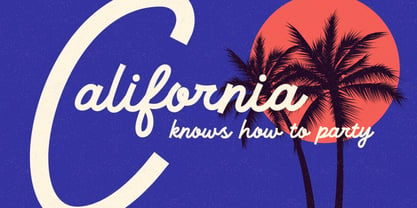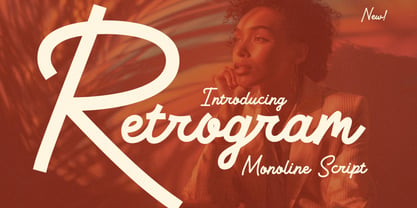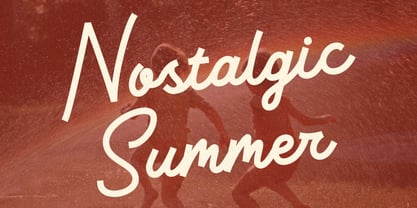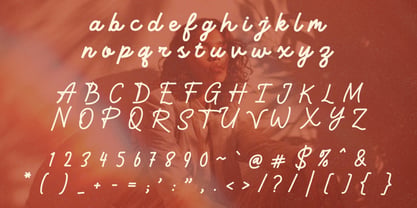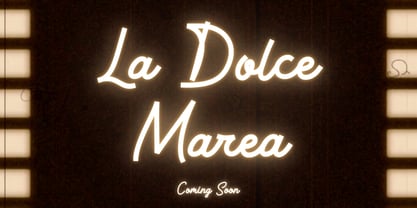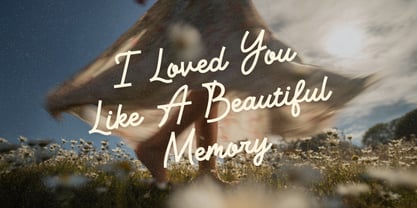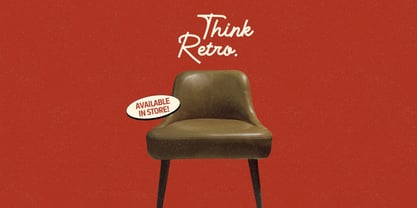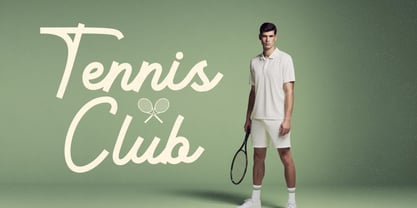
Retrogram
by Hipfonts
The Retrogram Font Family was designed by Igor Ovsyannykov and published by Hipfonts. Retrogram contains 1 styles. More about this family
Step into the golden glow of nostalgia with Retrogram, a stunning monoline script font that oozes charm, character, and charisma. Inspired by the carefree elegance of mid-century signage, classic soda labels, and retro Americana, Retrogram is more than just a typeface, it’s a time machine for your creativity.
Crafted with meticulous detail, each curve and stroke of Retrogram dances with fluidity, bringing an effortless rhythm to your designs. Whether you're creating a bold movie title, an iconic brand logo, a stylish poster, or an eye-catching headline, Retrogram demands attention without screaming for it and glows with confidence.